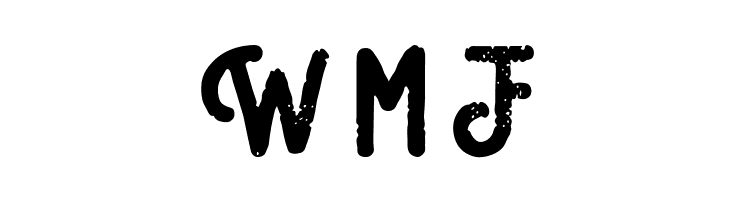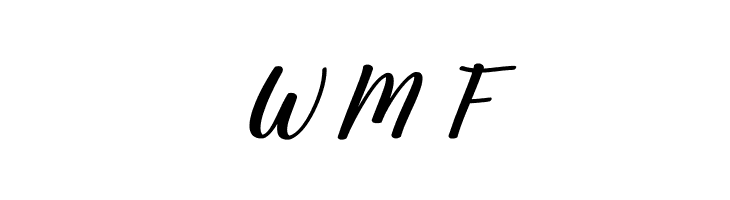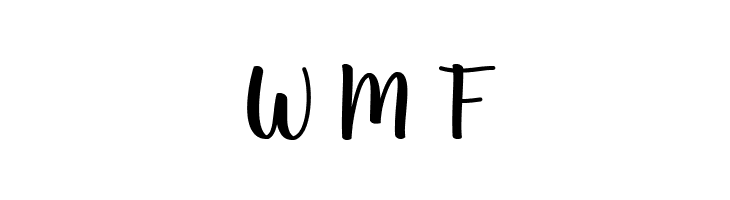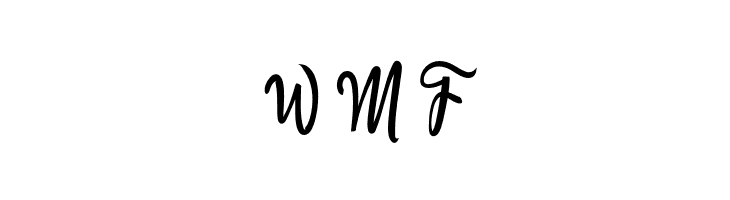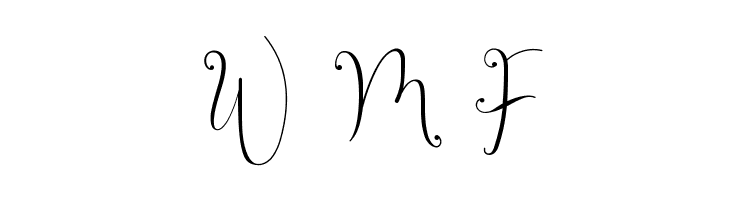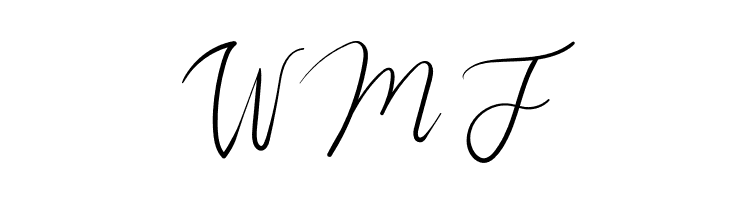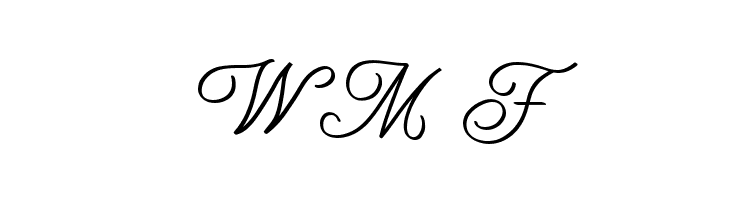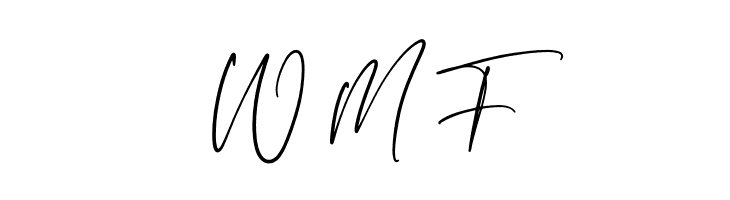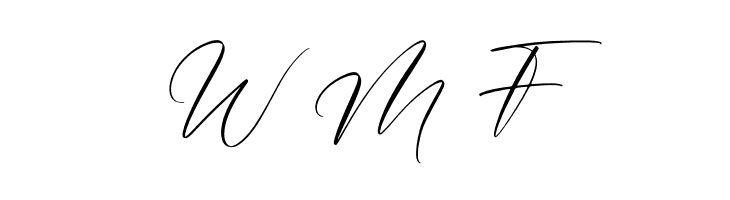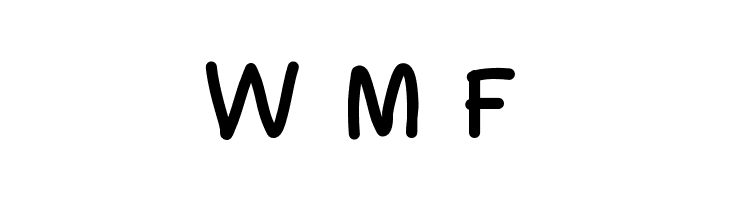
A bold, flowing script font with a handwritten, calligraphic style.
A playful and elegant handwritten font with fluid strokes and artistic flair.
A lively and expressive script font with flowing, cursive letterforms.
A lively, cursive font with elegant, flowing strokes and dramatic flourishes.
A playful, bold script font with a handwritten feel.
A dynamic and fluid script font with elegant, flowing letterforms.
A dynamic and flowing script font with elegant, cursive letterforms.
A modern, elegant handwritten script with high contrast and fluid strokes.
An elegant script font with flowing, interconnected letters and artistic flourishes.
Bold, geometric sans-serif font with a condensed and modern style.
A bold, distressed font with a rugged, handcrafted appearance.
A bold, slashed font with a gritty, urban aesthetic.
Elegant handwritten script font.
A playful, hand-drawn font with tall, narrow letters and a casual feel.
A playful, hand-drawn font with tall, narrow letters and a casual style.
A playful, hand-drawn font with tall, narrow letterforms and a casual style.
A playful, handwritten font with tall, narrow letters and a bold, casual style.
A hand-drawn, quirky font with tall, narrow letters and a playful style.
A playful, hand-drawn font with tall, narrow letters and a whimsical style.
A playful, handwritten-style font with tall, narrow characters and a casual feel.
A playful, handwritten-style font with tall, narrow characters and uneven strokes.
A dynamic and elegant script font with fluid, handwritten letterforms.
A flowing, elegant cursive font with a handwritten appearance.
A flowing, elegant script font with a natural handwritten style.
A modern, geometric sans-serif font with clean lines and uniform stroke widths.
A bold, expressive script font with fluid, dynamic strokes.
A bold, italic script font with flowing, cursive letterforms.